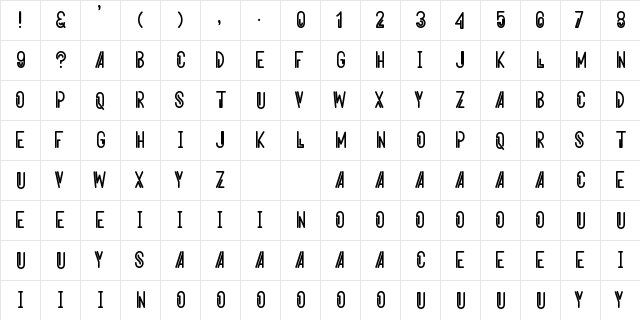
Aerocentrix Regular
Design Context for Aerocentrix Typeface
Aerocentrix is a composed and adaptable typeface that performs quietly and consistently across a wide range of design contexts.
Pro Tip: Pair Aerocentrix with a font of contrasting weight or personality to build a more expressive typographic hierarchy.